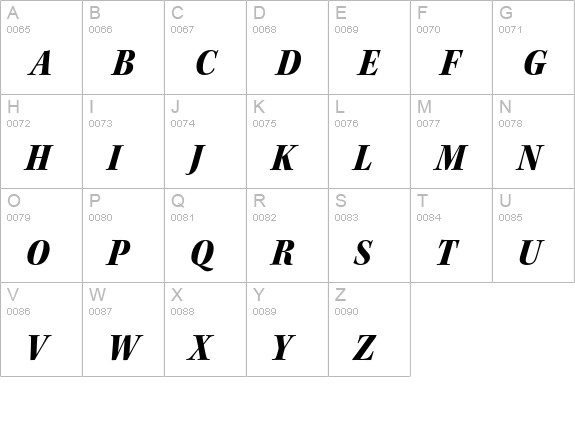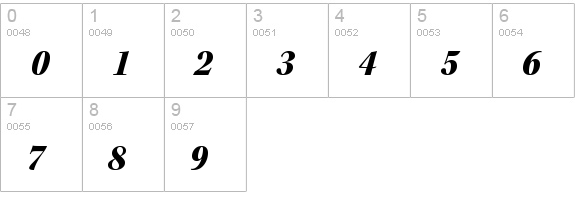
Kepler Std Black Semicondensed Italic Subhead Font Details
Kepler Std Black Semicondensed Italic Subhead is a maximum-weight, dramatic, italic variant in the Kepler typeface family \xE2\x80\x94 well suited to maximum-impact headlines, posters, and packaging.
Kepler Std Black Semicondensed Italic Subhead font is a visually striking and versatile typeface that commands attention with its bold and condensed design. Its sleek and modern appearance is perfect for adding emphasis and style to subheadings, titles, and other display texts. With its slightly slanted and italicized letterforms, Kepler Std Black Semicondensed Italic Subhead font exudes a sense of elegance and sophistication. Its bold strokes and narrow proportions create a powerful and impactful visual impact, making it ideal for projects that require a strong and commanding presence. This font is not only visually appealing but also highly legible, ensuring that your message is effectively communicated to your audience. Its well-defined letterforms and clear spacing make it easy to read, even at smaller sizes or in tight spaces. One of the best things about Kepler Std Black Semicondensed Italic Subhead font is that it is freely available to download at FontsMarket.com. This means that you can easily access and utilize this stunning typeface for your personal or commercial projects without any cost. Whether you're a professional designer, a student, or someone who simply appreciates beautiful typography, this font offers a valuable and accessible resource. So why settle for ordinary when you can make a bold statement with Kepler Std Black Semicondensed Italic Subhead font? Download it today from FontsMarket.com and elevate your designs with its striking and sophisticated aesthetic.